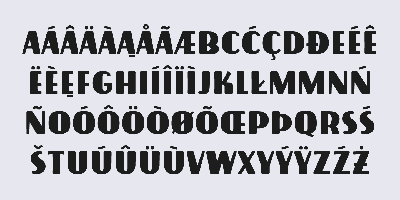
Romansan Font
Romansan Font is perfect for historical museums, archaeological institutions, classical studies programs, heritage tourism marketing, ancient civilization exhibitions, traditional Roman restaurants, classical architecture firms, and cultural heritage brands where Roman legacy and classical civilization are essential.
What makes Romansan Font exciting is its majestic, classical character that perfectly captures the imperial grandeur and architectural precision of ancient Roman civilization and classical antiquity. This font features strong letterforms with monumental proportions and classical details that mirror the enduring power of Roman inscriptions and the sophisticated engineering of imperial architecture. Its commanding presence instantly communicates historical authority, classical knowledge, and cultural heritage that resonates with historians, archaeologists, and anyone fascinated by the enduring influence of Roman civilization and classical culture.
Romansan Font family includes light, regular, medium, and bold weights with corresponding italic styles, plus Roman-inspired decorative elements like classical columns, imperial ornaments, archaeological symbols, and heritage flourishes that enhance the monumental atmosphere of any classical-focused design project.
Romansan Font Free Download represents a specialized resource for designers creating brand experiences in the cultural heritage, classical education, and historical tourism industries. This typeface excels in markets where historical authenticity and classical credibility directly influence educational engagement, cultural support, and institutional reputation among classical studies communities and heritage preservation advocates. Museum curators and classical educators particularly appreciate how Romansan Font instantly communicates historical expertise while maintaining excellent readability across all classical communications from exhibition materials to educational programs. The font's Roman aesthetic makes it ideal for archaeological sites, classical language programs, and ancient history museums where celebrating Roman heritage and educating about classical civilization is crucial for building cultural appreciation and supporting historical preservation among visitors who value ancient wisdom and classical culture. Its versatile design adapts seamlessly from large museum displays to detailed historical documentation, maintaining consistent authority while preserving classical authenticity. Whether you're designing for Roman archaeological sites, classical studies departments, or heritage tourism organizations, Romansan Font delivers the perfect combination of historical authority and classical sophistication that helps heritage-focused institutions establish credibility and create meaningful connections with audiences who appreciate Roman civilization, classical learning, and the enduring legacy that defines exceptional ancient history education and cultural heritage preservation.